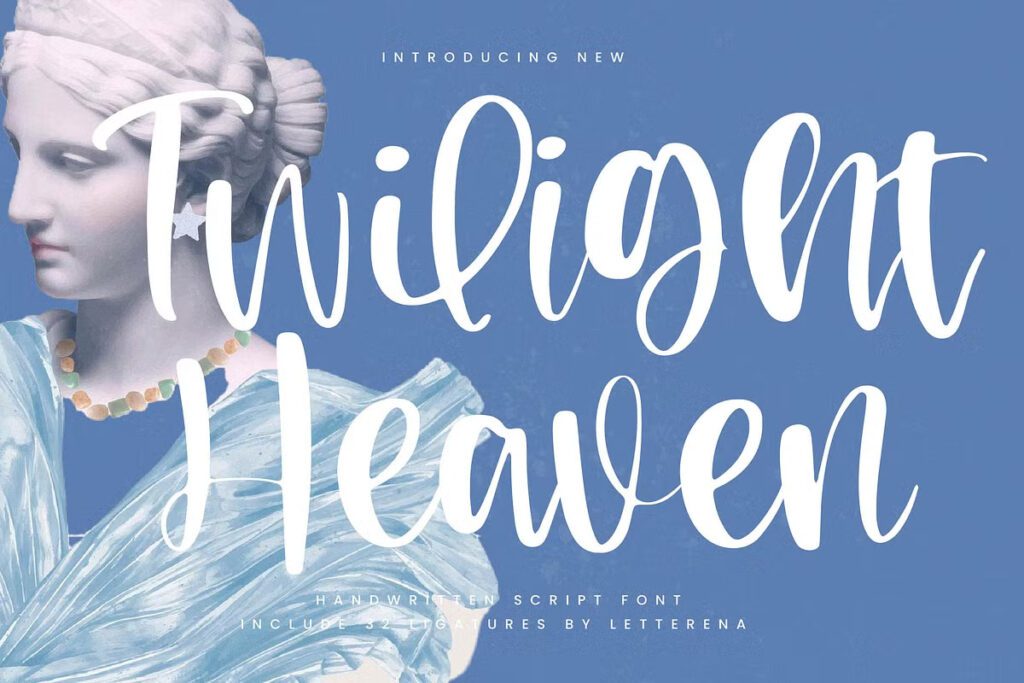
Twilight Heaven – Elegant Handwritten Script for Sophisticated Designs
Introducing Twilight Heaven, a beautifully crafted handwritten script font that adds elegance and sophistication to your creative work. Perfect for designers looking for a personal yet refined typeface, Twilight Heaven is the ideal choice for branding, invitations, and more.
Why Choose Twilight Heaven?
Elegant Handwritten Style:Twilight Heaven’s graceful, flowing strokes give your designs a personal yet polished look. Its carefully crafted letterforms make it perfect for projects that require a sophisticated touch.
Versatile for Many Projects:Whether you’re working on invitations, branding, or social media graphics, Twilight Heaven brings an air of refinement to any design, making it suitable for formal and casual projects alike.
Smooth and Flowing:Twilight Heaven offers fluid letter connections, making your typography appear cohesive and elegant with every use.
Features of Twilight Heaven
Handwritten Script: Elegant letterforms with smooth, flowing connections.
Uppercase & Lowercase Characters: Full character set for a variety of design styles.
Numerals & Punctuation: Standard OpenType features for flexible typography.
Multilingual Support: Compatible with multiple languages for global use.
Ideal Uses for Twilight Heaven
Wedding Invitations: Add a touch of romance and elegance to formal invitations.
Branding & Logos: Perfect for high-end brands seeking a sophisticated identity.
Social Media Graphics: Use Twilight Heaven to elevate the aesthetic of your posts with a refined, handwritten look.